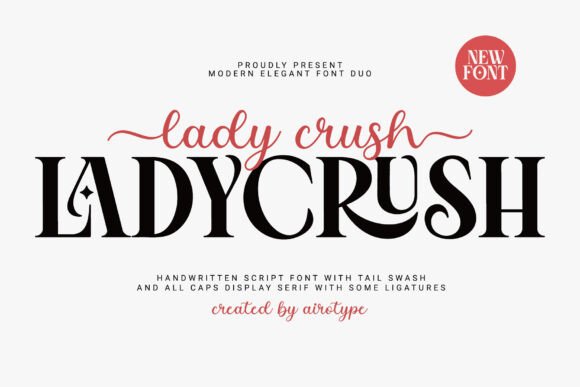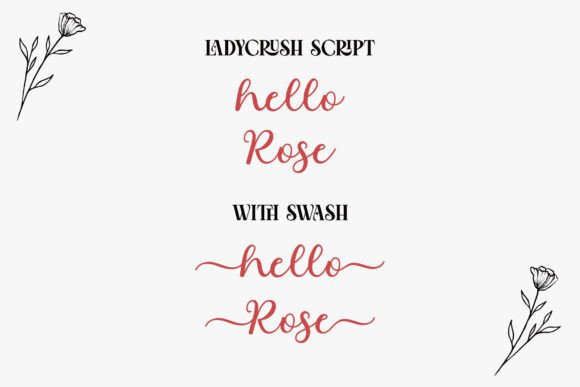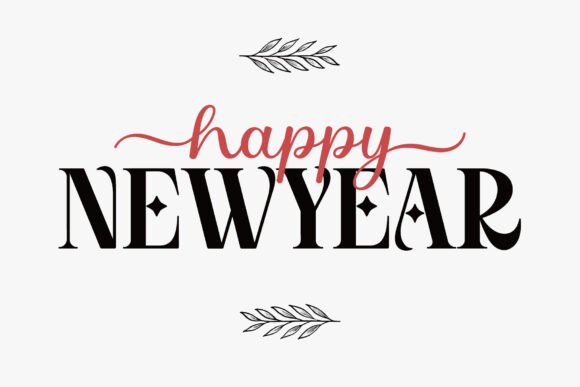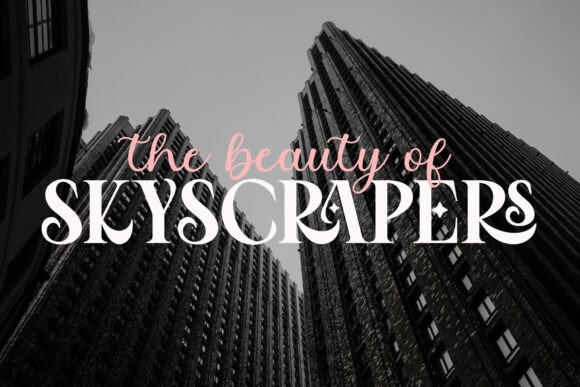
Lady Crush Font
About the Lady Crush Font
Welcome to the world of Lady Crush Font, a typeface that will inspire your next great project. Lady Crush is a modern and elegant font duo that combines a graceful handwritten script with a bold all-caps serif display. The contrast between its flowing tail swashes and refined serifs makes it perfect for feminine branding, upscale packaging, wedding designs, and editorial headers. Whether used solo or as a pair, Lady Crush brings luxury and personality to every project.
Its elegant yet bold nature makes Lady Crush ideal for headlines, logos, and short-form text on packaging or invitations. Avoid using it for lengthy body copy or UI elements; the script’s delicate strokes would prove illegible at smaller sizes.
The font’s inherent sophistication pairs well with clean sans-serifs like Montserrat or Open Sans for a balanced contrast. For a more luxurious feel, consider pairing it with a classic serif such as Garamond or a subtly geometric sans-serif like Futura. Avoid overly playful or informal fonts.
Lady Crush projects a sophisticated, confident personality, suitable for brands emphasizing luxury, beauty, or high-end fashion. Its strong yet graceful aesthetic lends itself to projects requiring a touch of feminine charm without sacrificing visual impact.
Lady Crush Font Usage Examples
Lady Crush Font Example